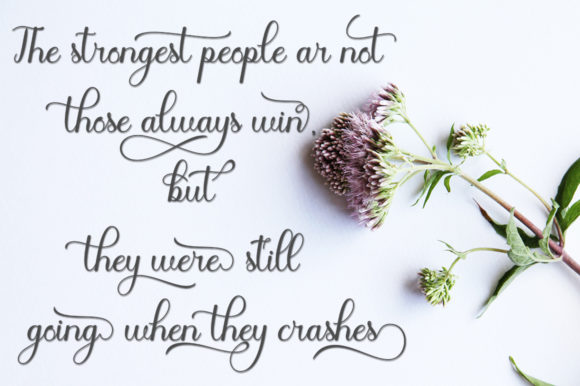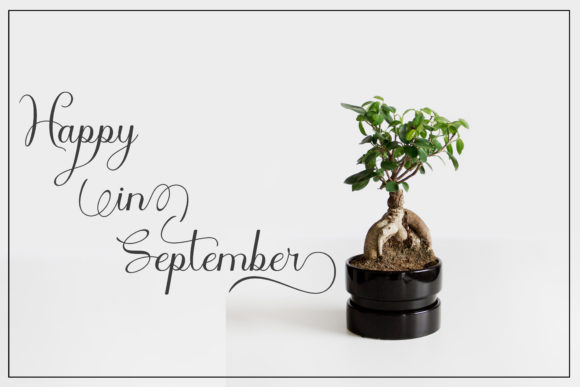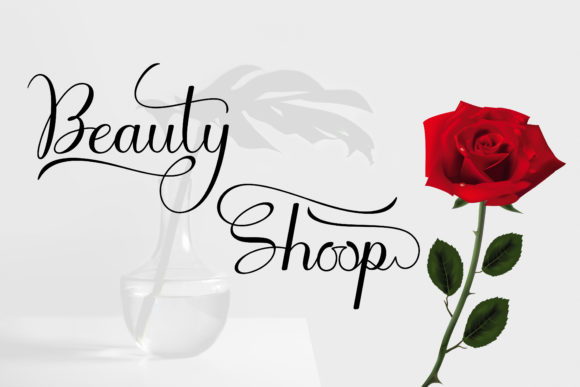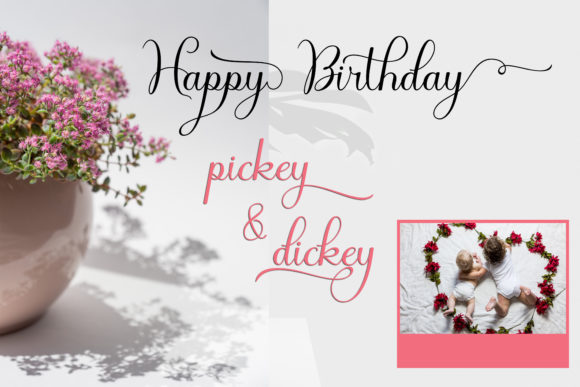
What Dreams Are Made Of: Billie Endria Font
Are you a designer or crafter looking for a font that embodies sophistication and charm? Look no further than the Billie Endria font. This stunning script font is making waves in the design world, and for good reason. With its elegant lines, flowing curves, and vintage vibe, Billie Endria is the perfect addition to any project.
The Story Behind Billie Endria
Billie Endria is a script font designed with love and care to bring a touch of luxury to your designs. Its creator aimed to craft a font that would evoke the glamour of a bygone era, while still feeling modern and fresh. The result is a font that is both sophisticated and charming, perfect for a wide range of applications.
Key Features of Billie Endria Font
- Elegant Script Style: Billie Endria boasts a beautiful script style that is perfect for adding a touch of elegance to your designs.
- Flowing Curves: The font features flowing curves that give it a sense of movement and fluidity.
- Vintage Vibe: Billie Endria has a distinct vintage vibe that makes it perfect for projects that require a touch of nostalgia.
- Highly Legible: Despite its elegant style, Billie Endria is highly legible, making it perfect for use in a wide range of applications.
Uses for Billie Endria Font
Billie Endria is a versatile font that can be used in a wide range of applications, including:
- Branding and Logo Design: The font’s elegant style and vintage vibe make it perfect for branding and logo design.
- Wedding and Event Stationery: Billie Endria is a popular choice for wedding and event stationery, adding a touch of luxury and sophistication to invitations, programs, and more.
- Packaging Design: The font’s flowing curves and elegant style make it perfect for packaging design, particularly for luxury brands.
- Digital Design: Billie Endria can be used in digital design, including social media graphics, website headers, and more.
Tips for Using Billie Endria Font
To get the most out of Billie Endria, here are a few tips:
- Use it as a Headline Font: Billie Endria is perfect for use as a headline font, adding a touch of elegance and sophistication to your designs.
- Pair it with a Sans Serif Font: For body text, pair Billie Endria with a sans serif font to create a beautiful contrast.
- Experiment with Colors: Billie Endria looks stunning in a range of colors, from metallic gold and silver to rich jewel tones.
In conclusion, Billie Endria is a sophisticated and charming script font that is perfect for designers and crafters looking to add a touch of luxury to their projects. With its elegant lines, flowing curves, and vintage vibe, Billie Endria is sure to impress. Whether you’re designing a brand logo, wedding stationery, or packaging, Billie Endria is a versatile font that is sure to deliver.